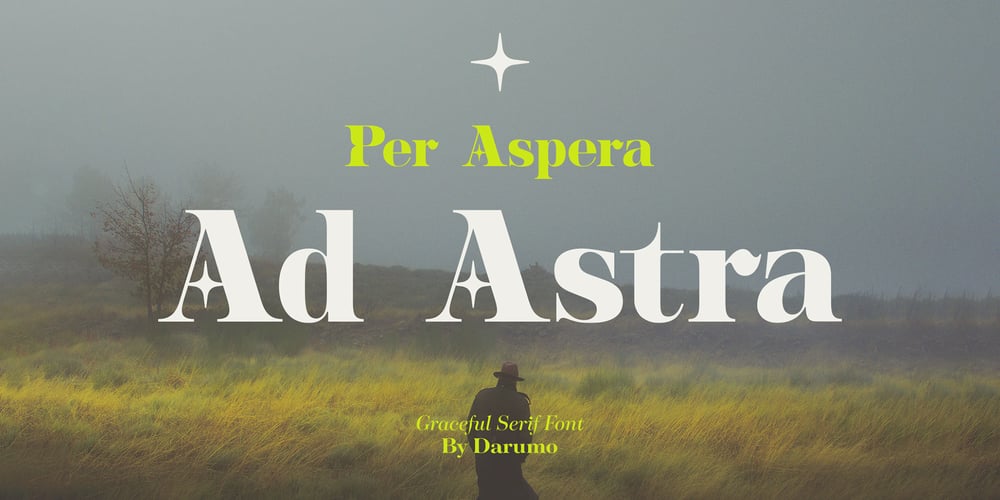
DR Ad Astra Font Family was designed by Roman Dementev and published by Darumo. DR Ad Astra contains 1 styles and family package options. Enjoy this sophisticated serif font. Modern trends finally meet timeless classics here. This typeface, wherever it’s used, will give a sense of refinement in detail, and at the same time, a touch of relaxed elegance. If you are looking for a trendy font that could give you these feelings of modern grace and classic elegance, you’ve already found it.This font is quite versatile and can be used in both classic and modern designs. Whether it’s a sensuous Jane Austen-inspired love letter or a trendy acid-jazz concert poster, this font will give your design a finished look and a touch of sophistication.